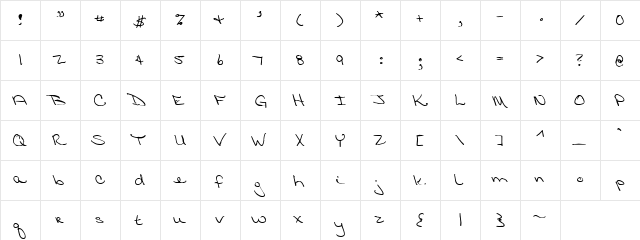
LD Print 8 Regular
Design Context for LD Print 8 Typeface
LD Print 8 takes a measured approach to typography — its balanced proportions and neutral character make it a reliable workhorse for both digital and print work.